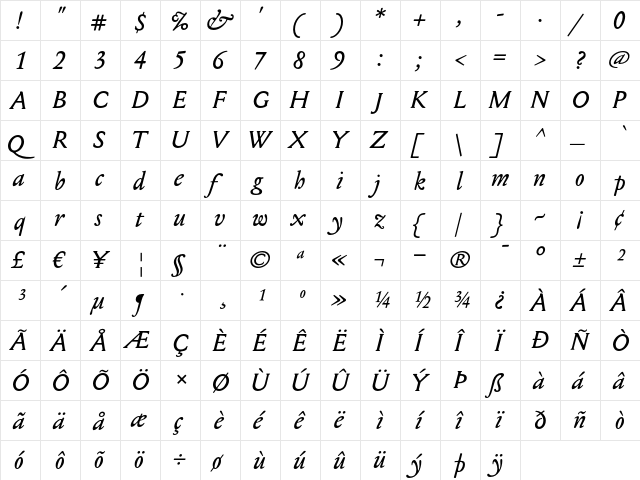
Mediaeval Italic
Italic · Frantisek Storm Frantisek Storm ·
DesignerFrantisek Storm
Design Context for Mediaeval Typeface
Mediaeval takes a measured approach to typography — its balanced proportions and neutral character make it a reliable workhorse for both digital and print work. The slanted form adds forward momentum and visual energy.